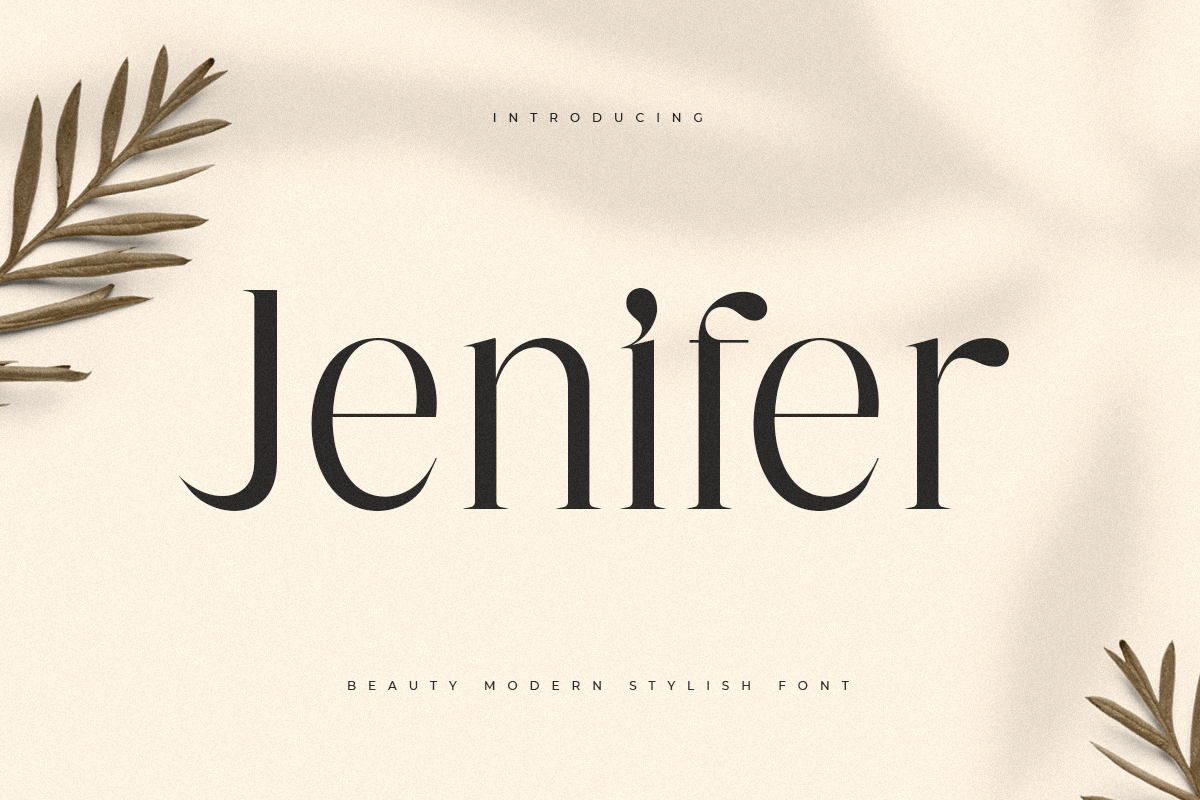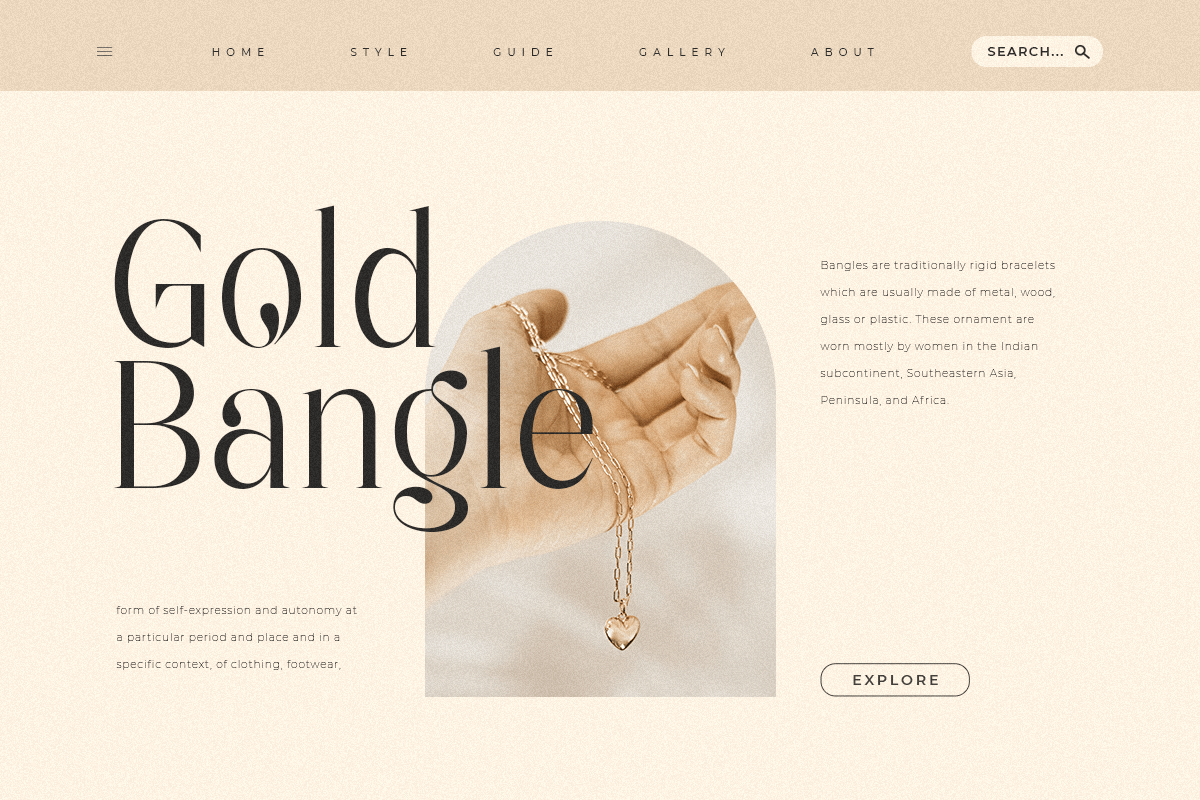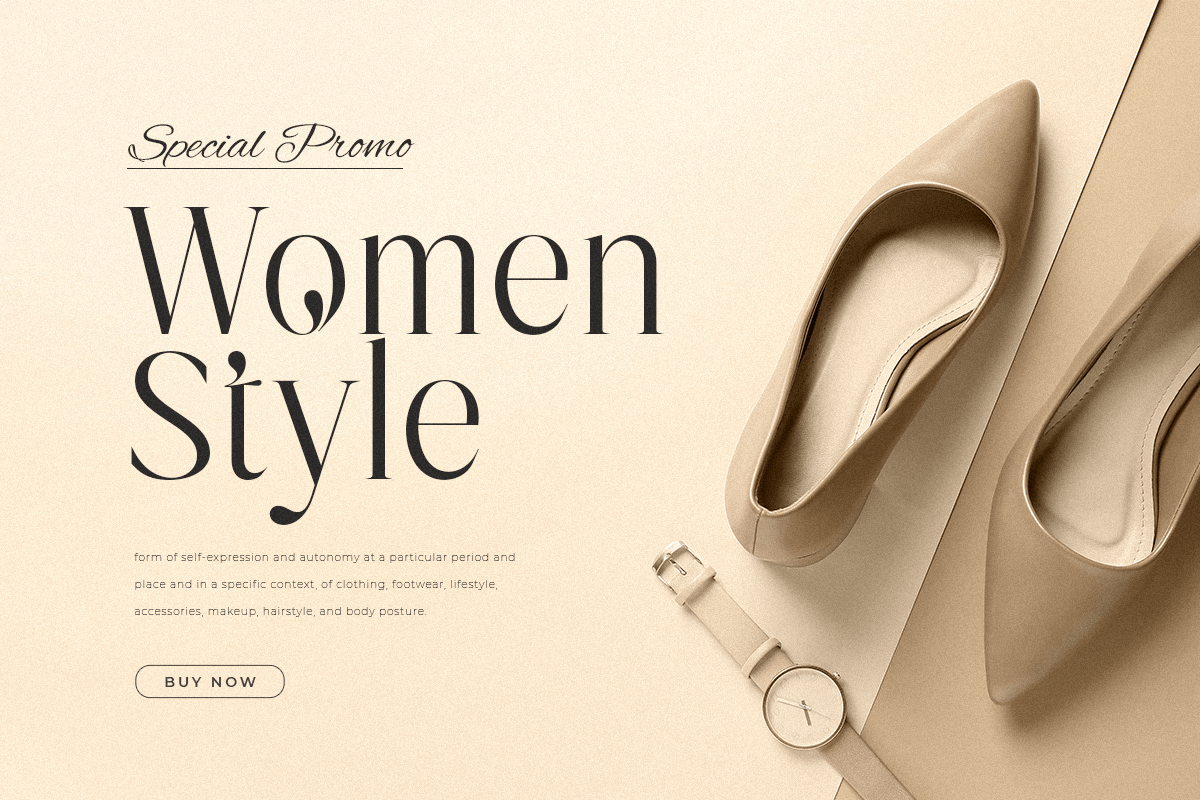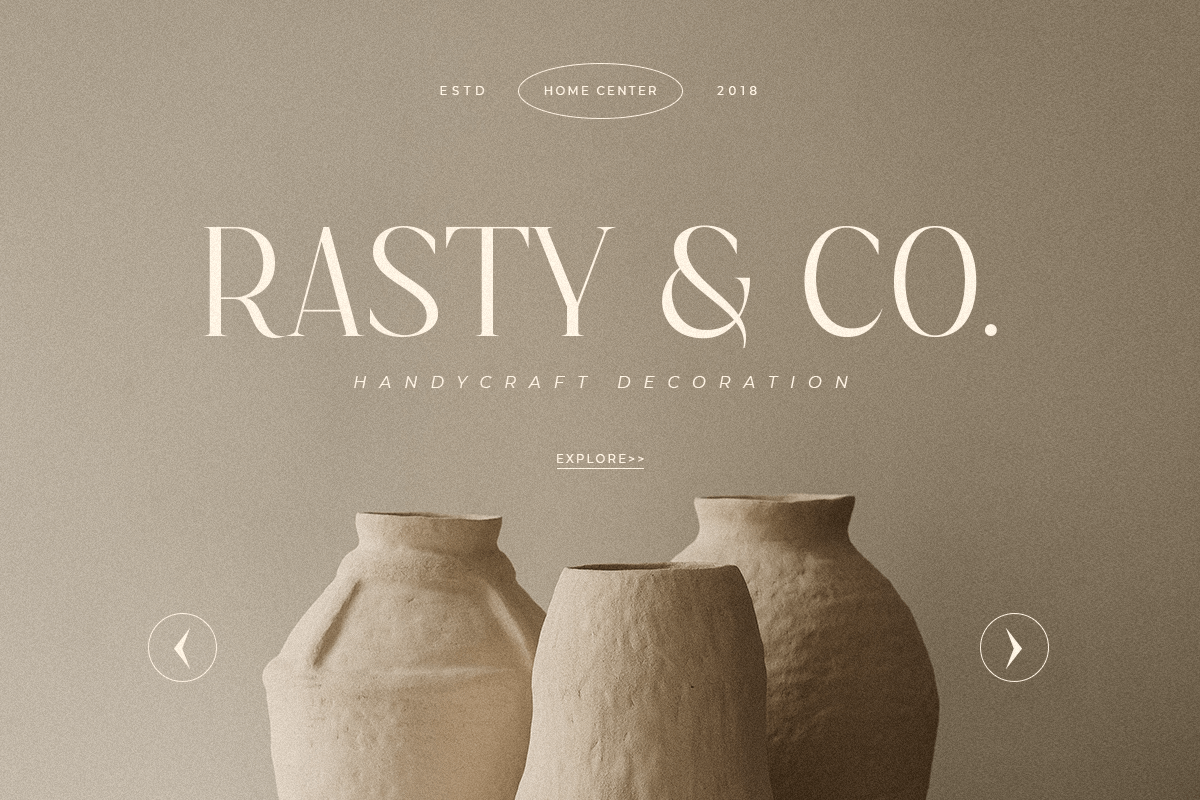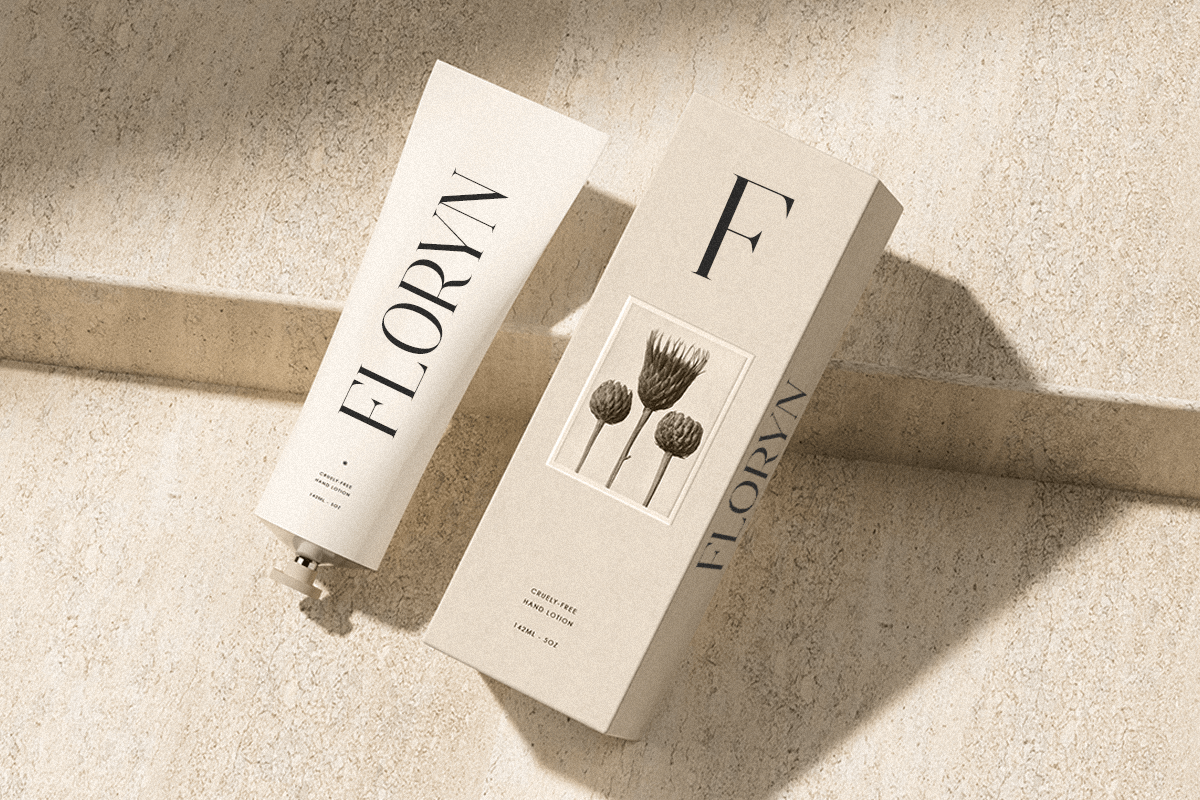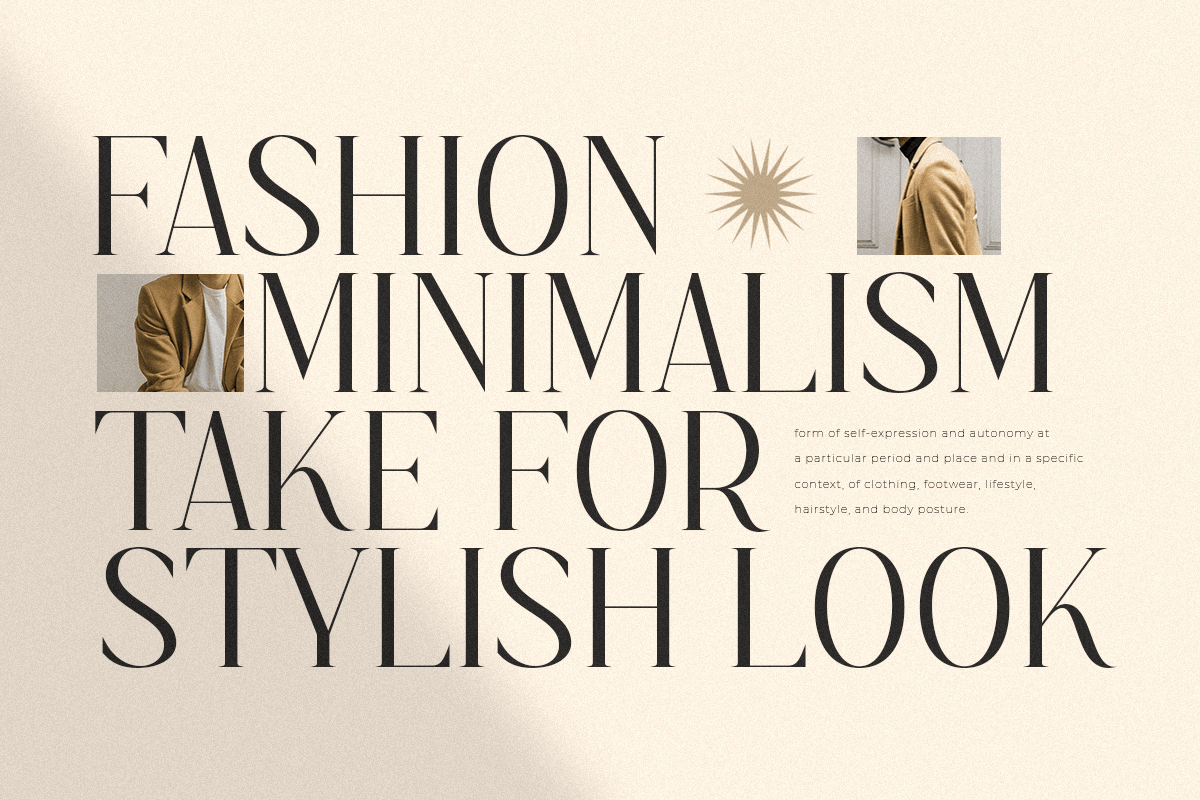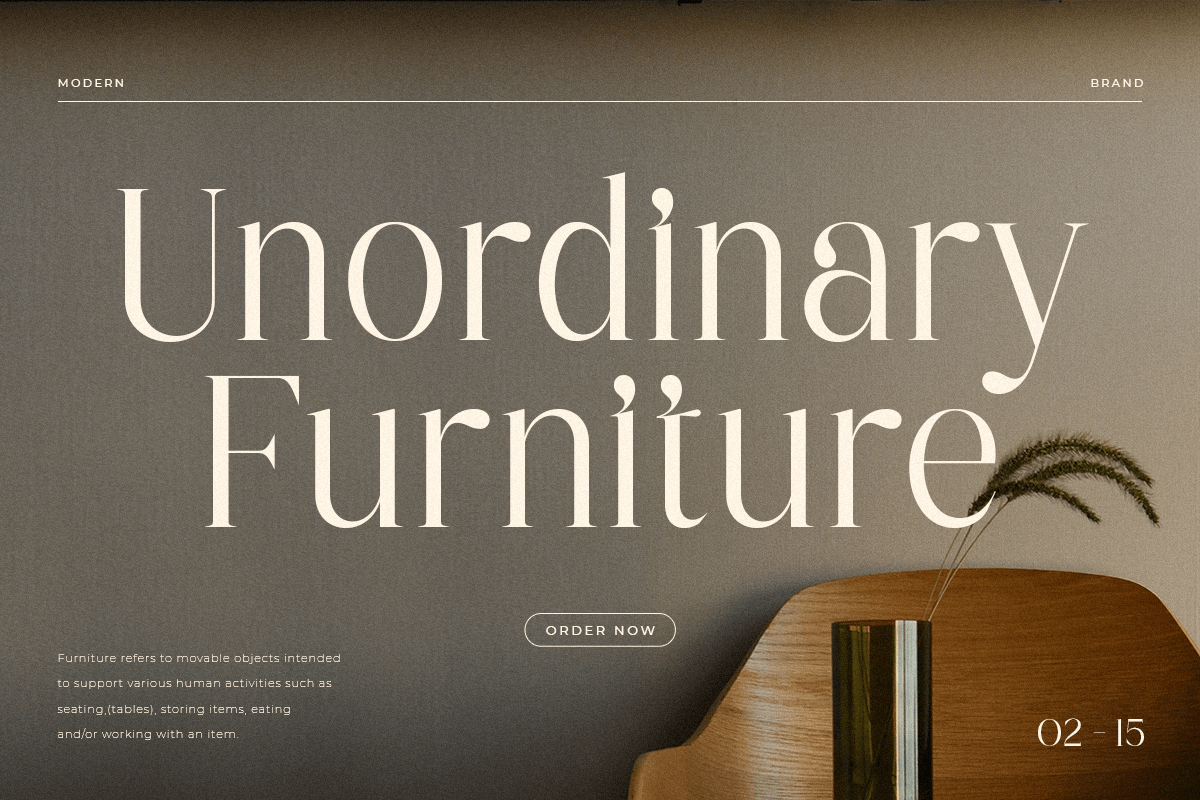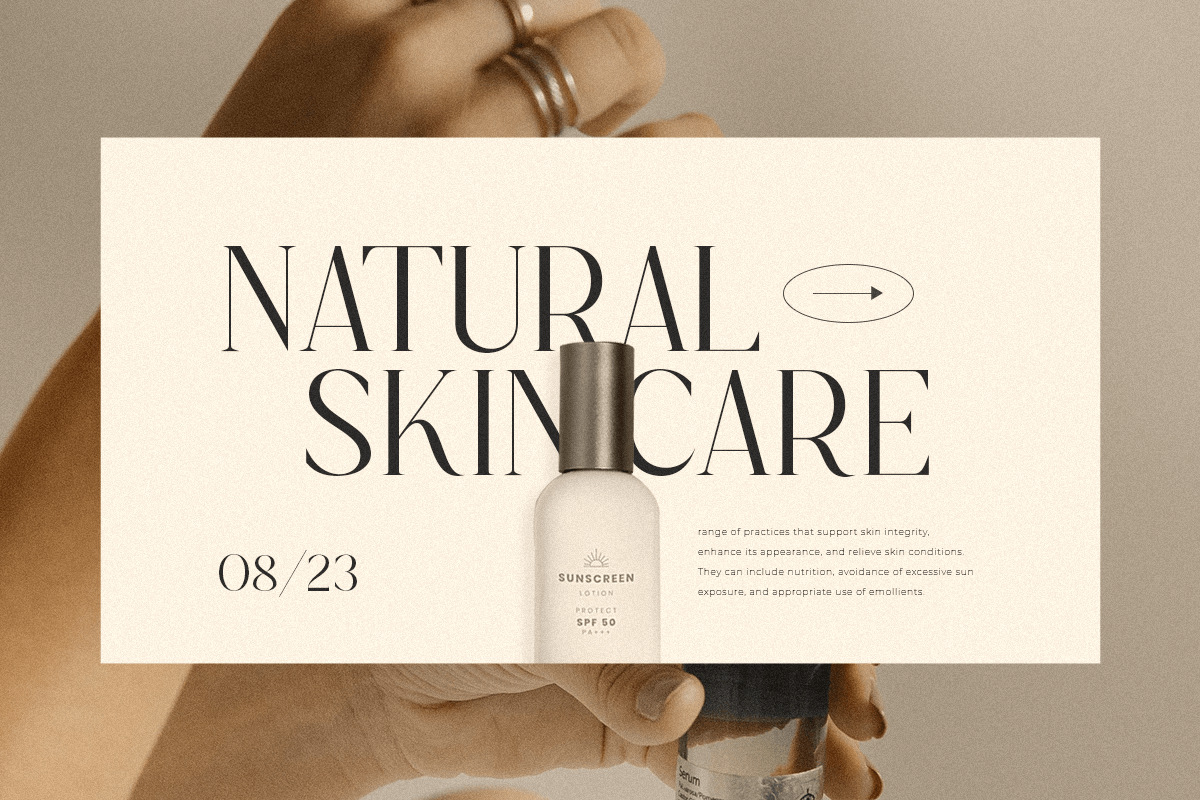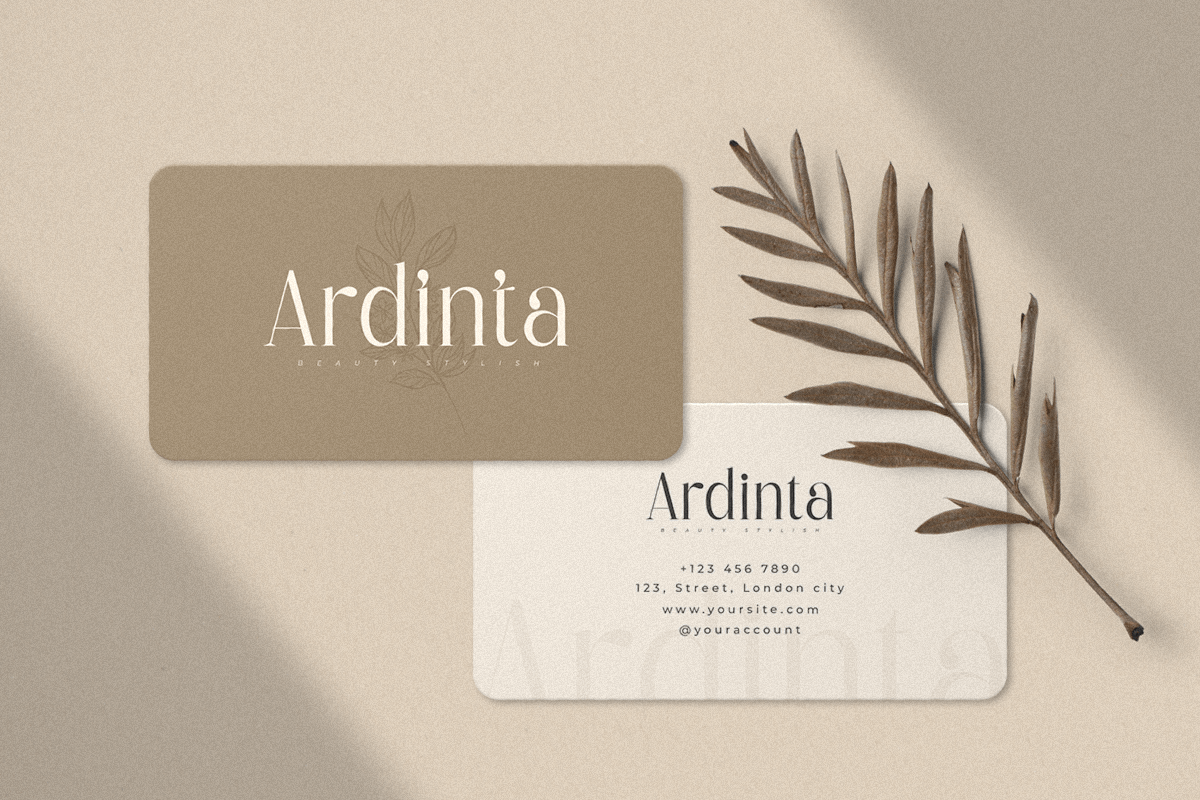
Jenifer
Jenifer is a Beauty Modern Stylish Font
A new font that we created special for branding needs, with unique characters and awesome alternative characters are ready to add value of your brand. It so nice to leverage designer or product owner that need solutions to make their design look more beauty and modern. And specially for Salute font, We prepared any swash and any alternate characters to help you create unlimited variations for your creative needs.